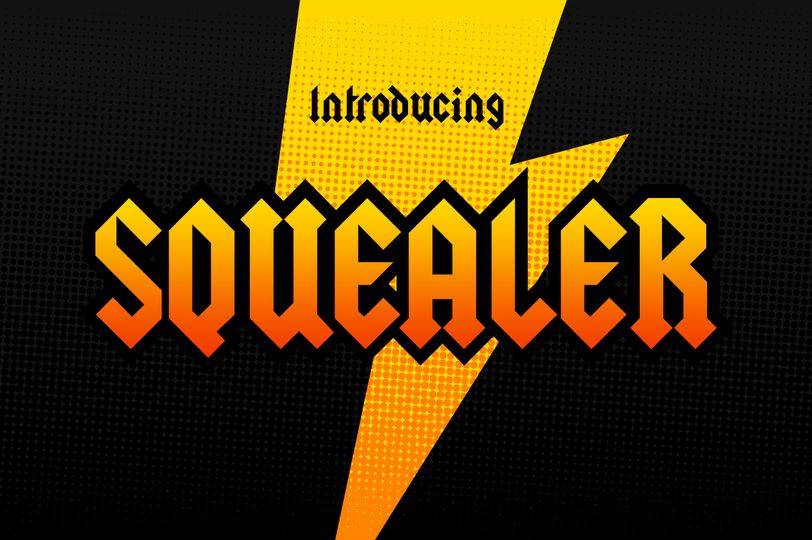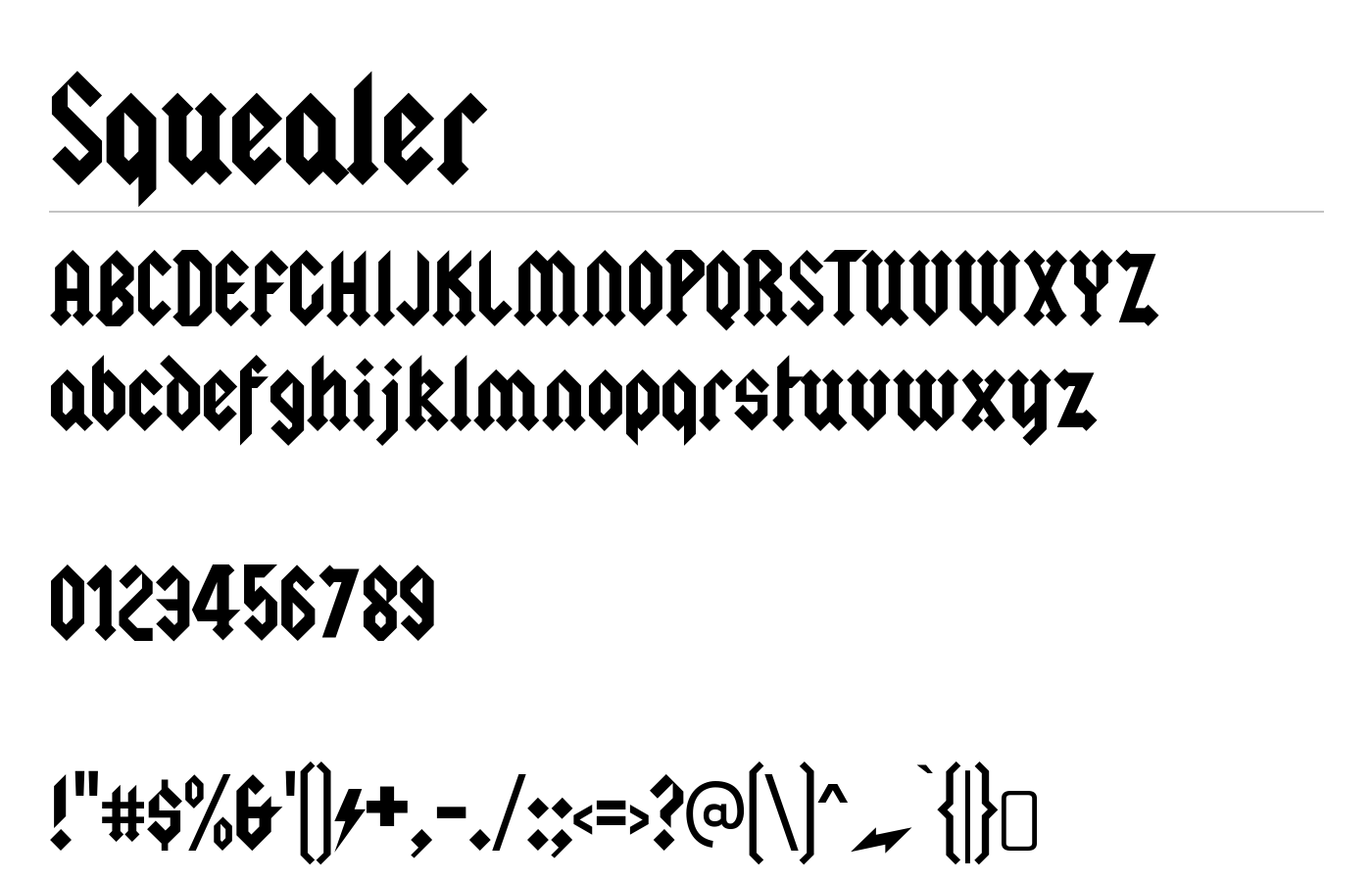
Squealer is a bold blackletter-style font with sharp, angular strokes and a strong medieval character. Its condensed letterforms and high contrast between thick and thin lines give it a dramatic, striking presence, perfect for creating vintage or gothic-inspired headlines and branding that demand attention. This font works well for projects aiming to convey intensity, tradition, and a distinctive historic flair.
Squealer
About Squealer
| Font family | Squealer |
| Designer | Ray Larabie |